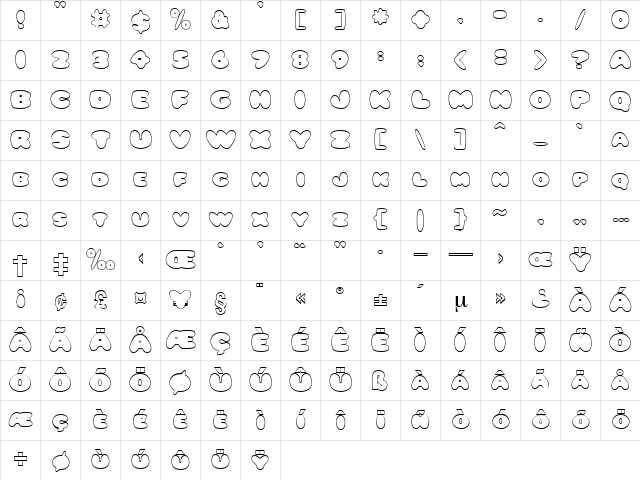
BumblebeeOpen Regular
Design Context for BumblebeeOpen
BumblebeeOpen is a composed and adaptable typeface that performs quietly and consistently across a wide range of design contexts.